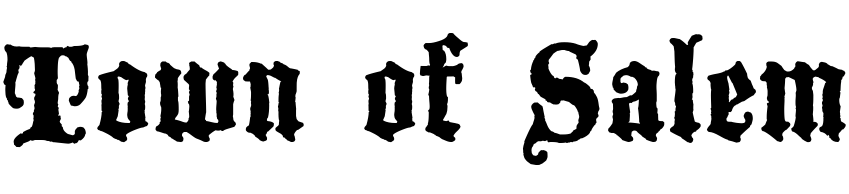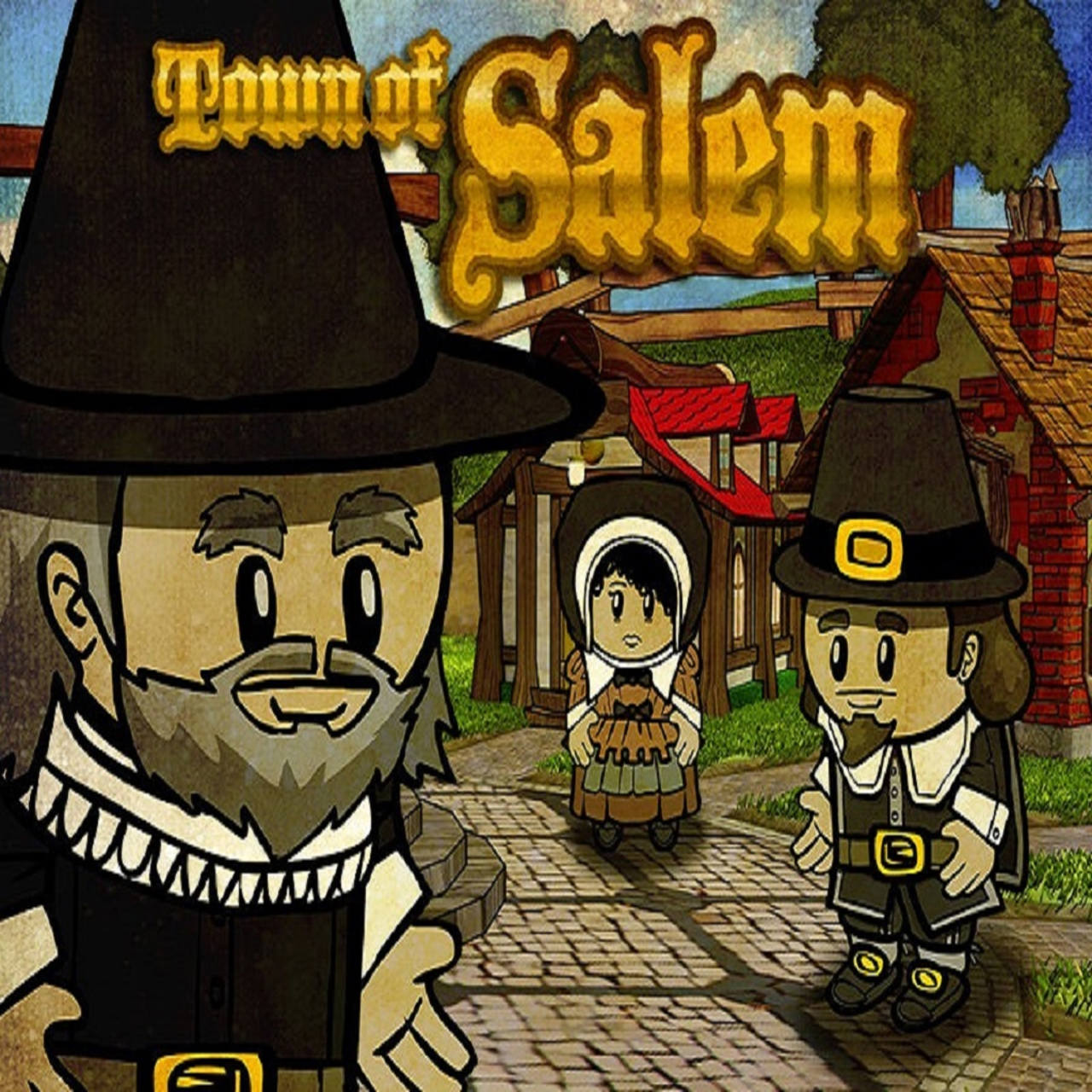
Fonts in UseTown of Salem is an online multiplayer game where players assume different roles and attempt to uncover the identities of other players while deceiving and eliminating their opponents through strategic gameplay and deduction.
The game's logo features the gothic font Blackwood Castle by Dieter Steffmann, available in both outline and solid styles, and is free for personal and commercial use.